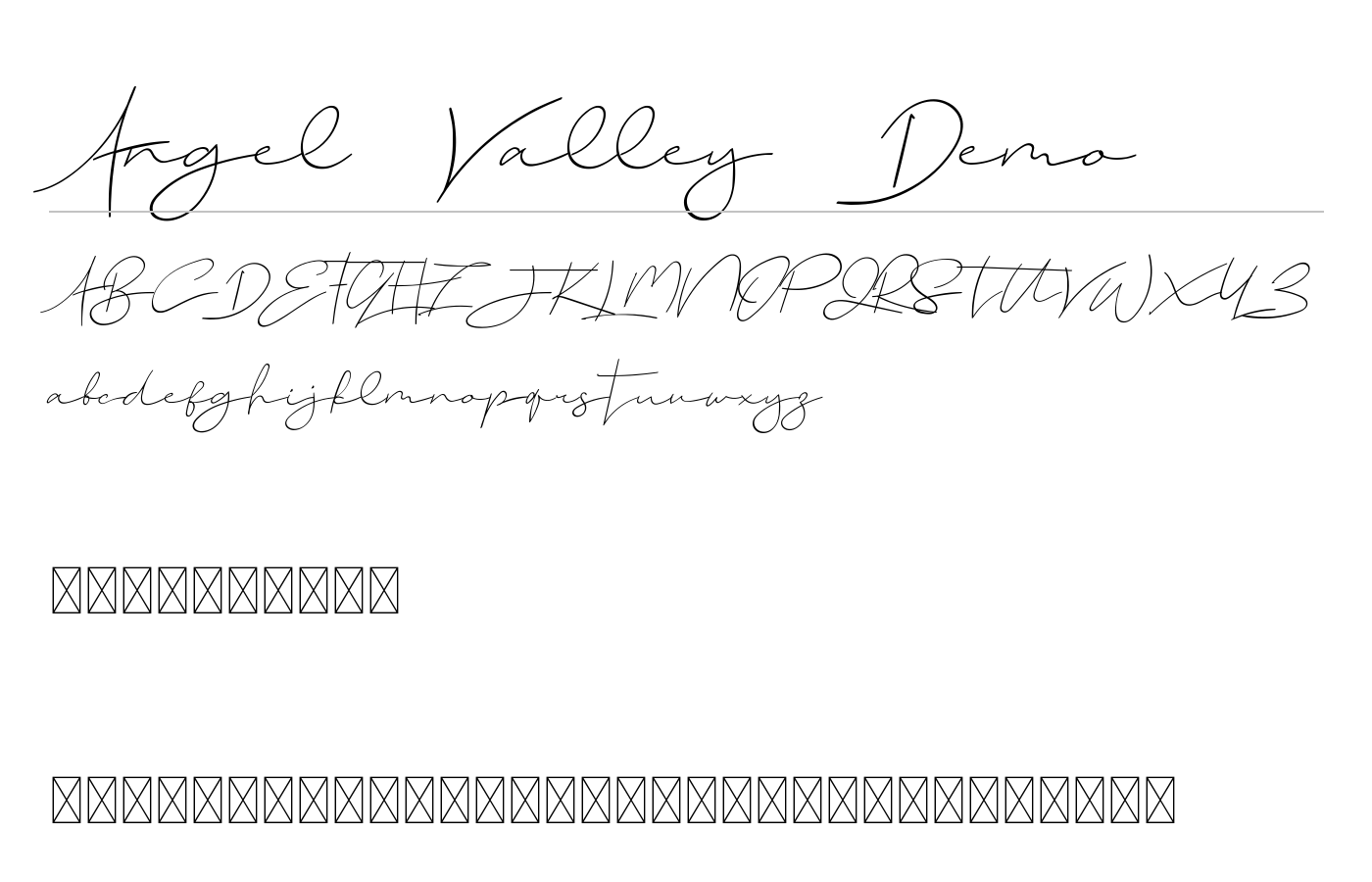
Angel Valley Demo is a delicate and elegant handwritten script font characterized by fine, flowing strokes that create a natural, personal touch. Its slender letterforms with subtle loops and a light, airy feel make it ideal for branding, invitations, and designs that seek a graceful, intimate, and sophisticated aesthetic. This font works beautifully in contexts where a stylish, handcrafted look is desired, especially for fashion, wedding, or lifestyle projects.
Angel Valley Demo Font
About Angel Valley Demo Font
| Font family | Angel Valley Demo Font |
| Designer | Fajar Saepul Rohman & Sarah Suci Pauziah |